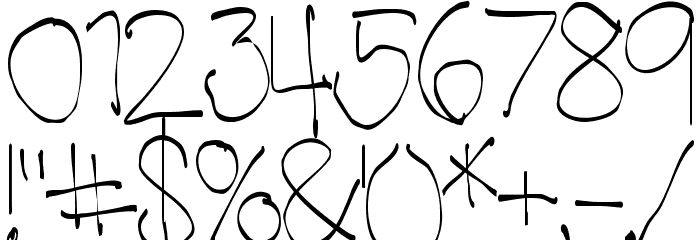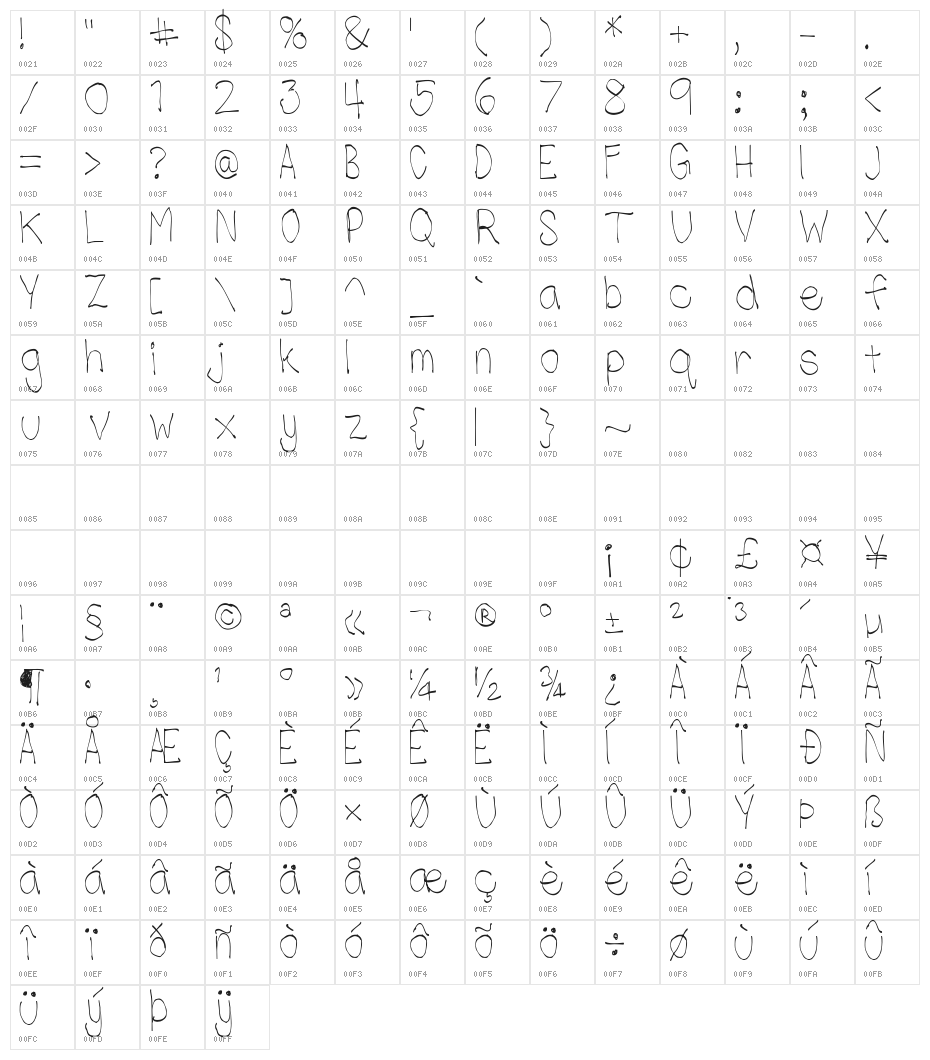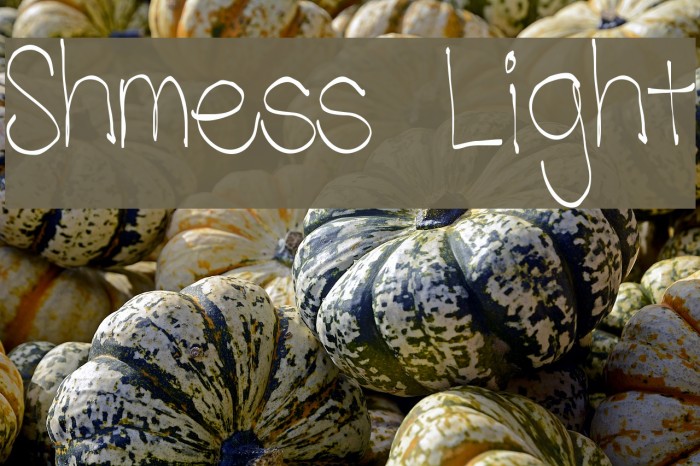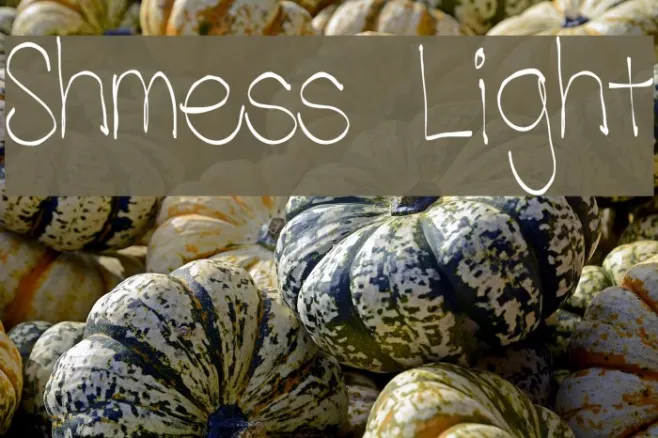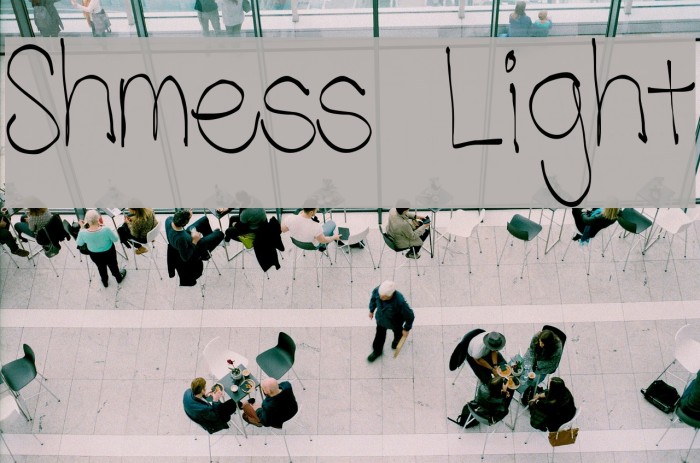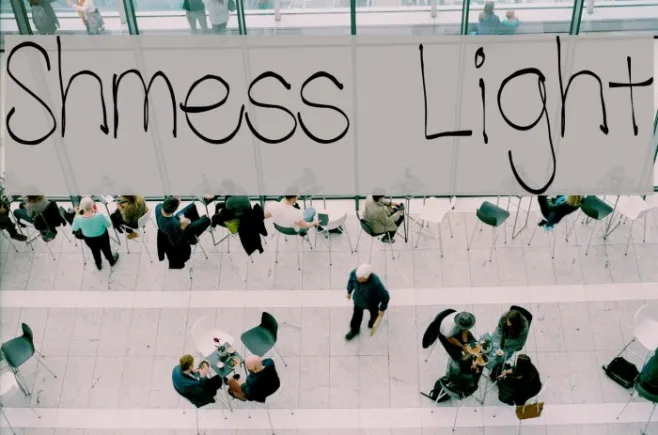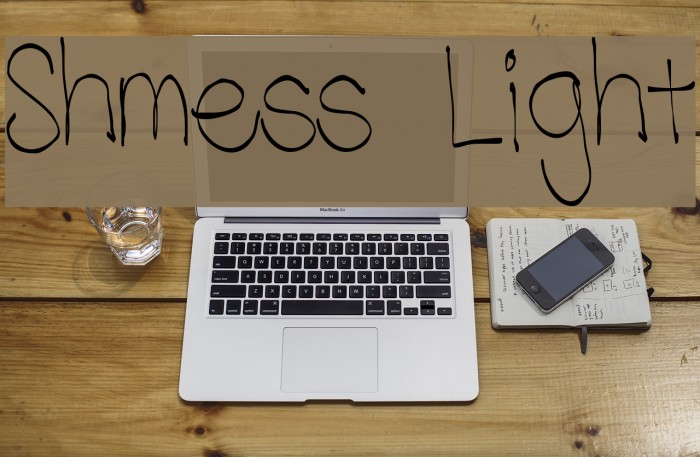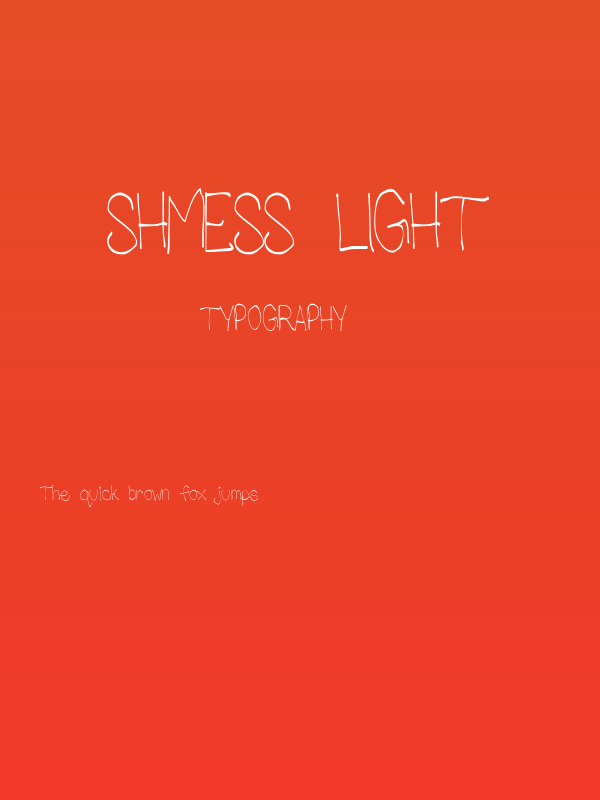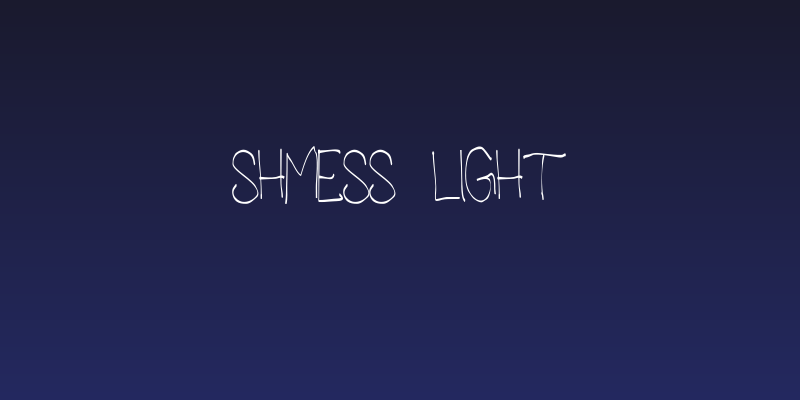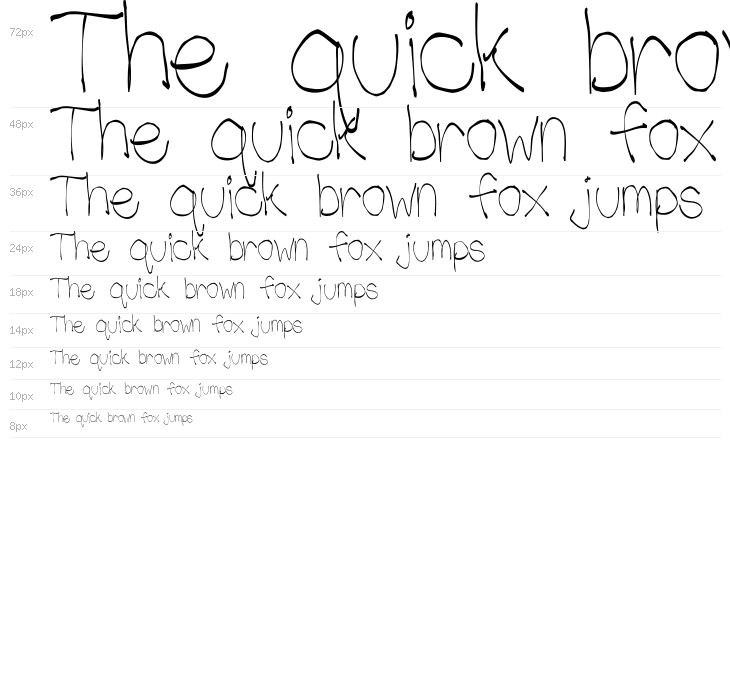
Shmess Light Font
This font features a playful, hand-drawn style with irregular strokes and a whimsical appearance. The characters are thin and elongated, with a casual and informal feel. The uppercase and lowercase letters maintain a consistent style, with some letters having unique, quirky elements, such as the loop in the lowercase 'g' and the distinctive tail of the 'y'. The numerals and special characters follow the same playful design, adding to the font's overall charm. This font's light weight and organic flow make it suitable for creative and artistic projects.
Use CaseHeadlines, Logos, Creative projects
Proposed ProjectsIdeal for children's books, greeting cards, creative posters, and artistic branding.